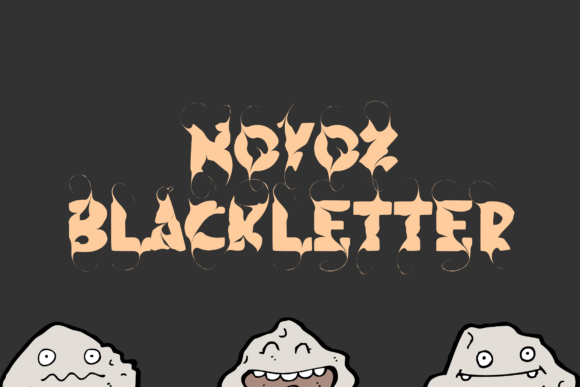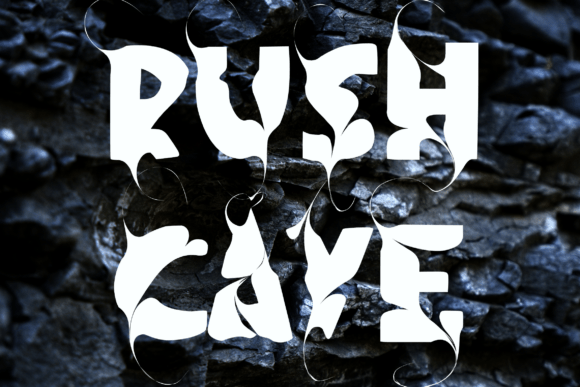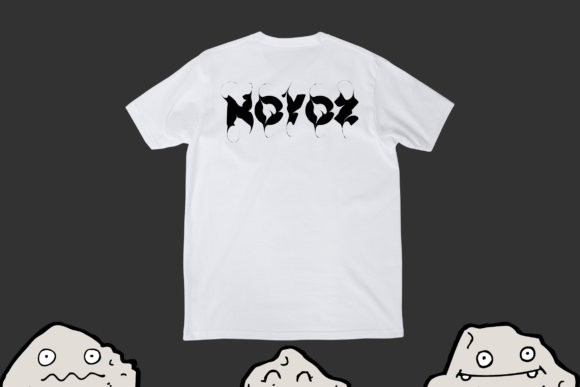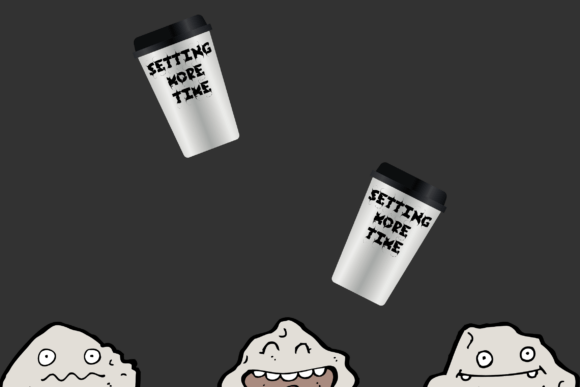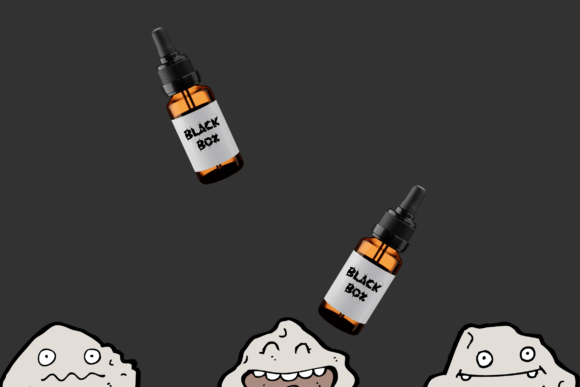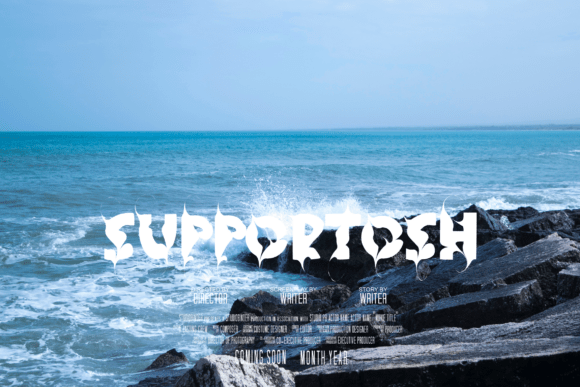
Introduction to Novox Blackletter Font Font
Fonts play a crucial role in design, and the Novox Blackletter Font font is a typeface that brings both character and versatility to any project. Whether you’re working on a branding project, a website, or a print design, the Novox Blackletter Font font offers a unique style that can elevate your work.
Novox Blackletter – Bold & Dramatic Gothic Typeface Novox Blackletter is a powerful blackletter typeface that channels the striking and ornate aesthetic of medieval calligraphy with a modern edge.
With its sharp serifs, intricate details, and heavy strokes, this font is ideal for making a strong impression in headlines, tattoo designs, gothic branding, band logos, apparel, and fantasy-themed projects Features: Gothic Blackletter Style: Inspired by traditional Old English script with modern refinements for readability and flair.
Key Features of Novox Blackletter Font Font
Why Choose Novox Blackletter Font Font?
The Novox Blackletter Font font is more than just a typeface – it’s a design tool that helps you communicate your message with style and clarity. Its unique character set and versatile design make it suitable for a wide range of applications, from elegant invitations to bold headlines.
With its carefully crafted letterforms and balanced proportions, the Novox Blackletter Font font ensures readability and visual appeal across all mediums.
What makes Novox Blackletter Font font special?
The Novox Blackletter Font font stands out with its unique design, exceptional readability, and versatility across various design applications.